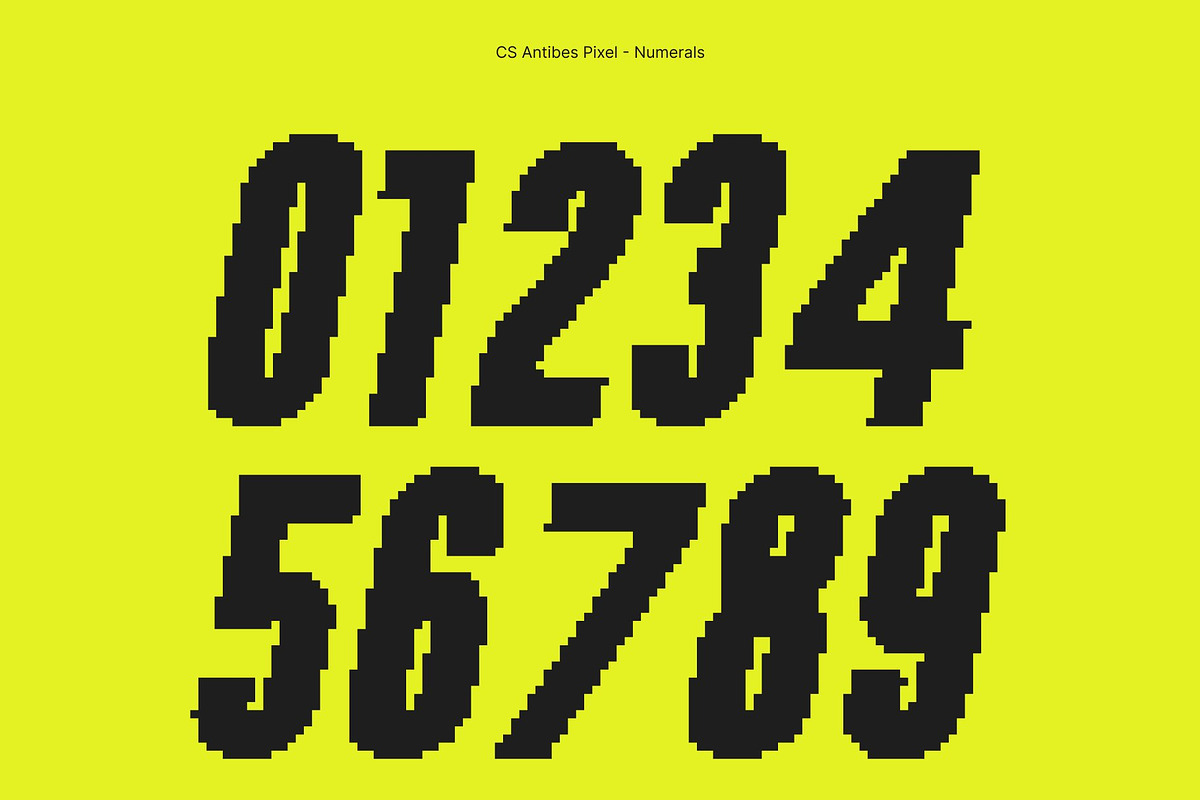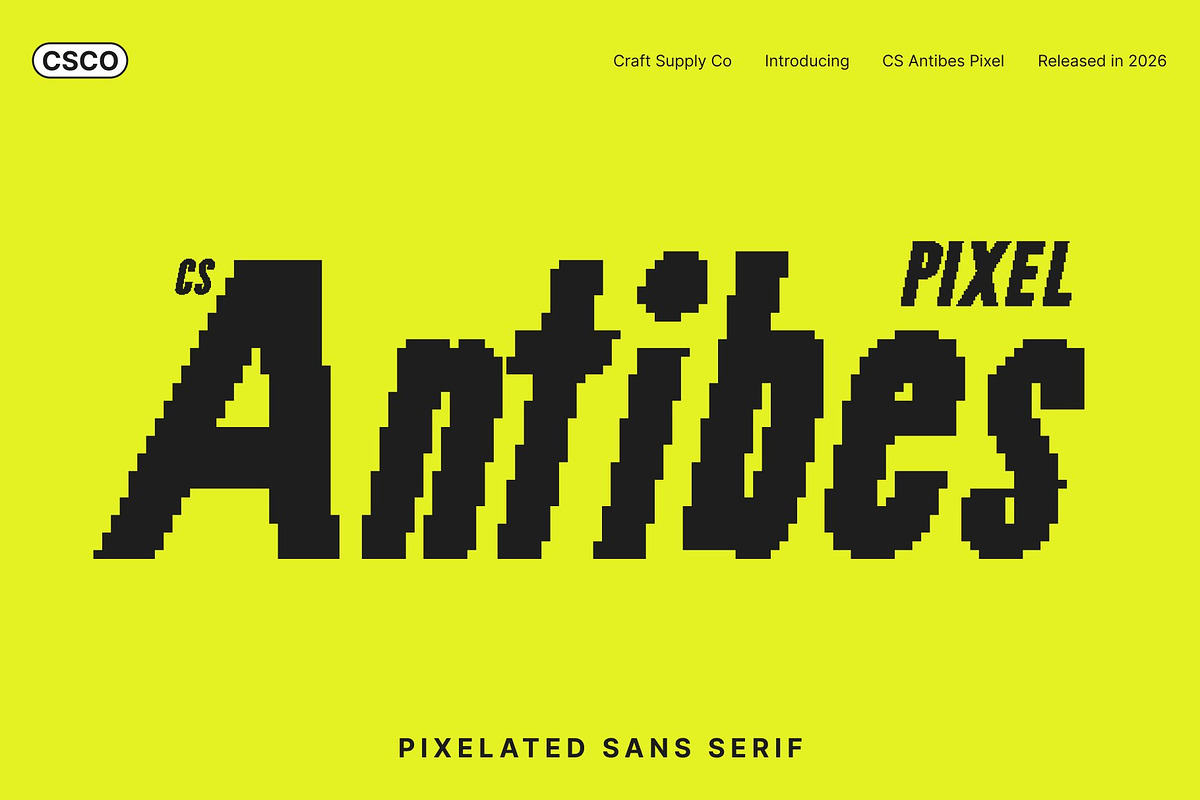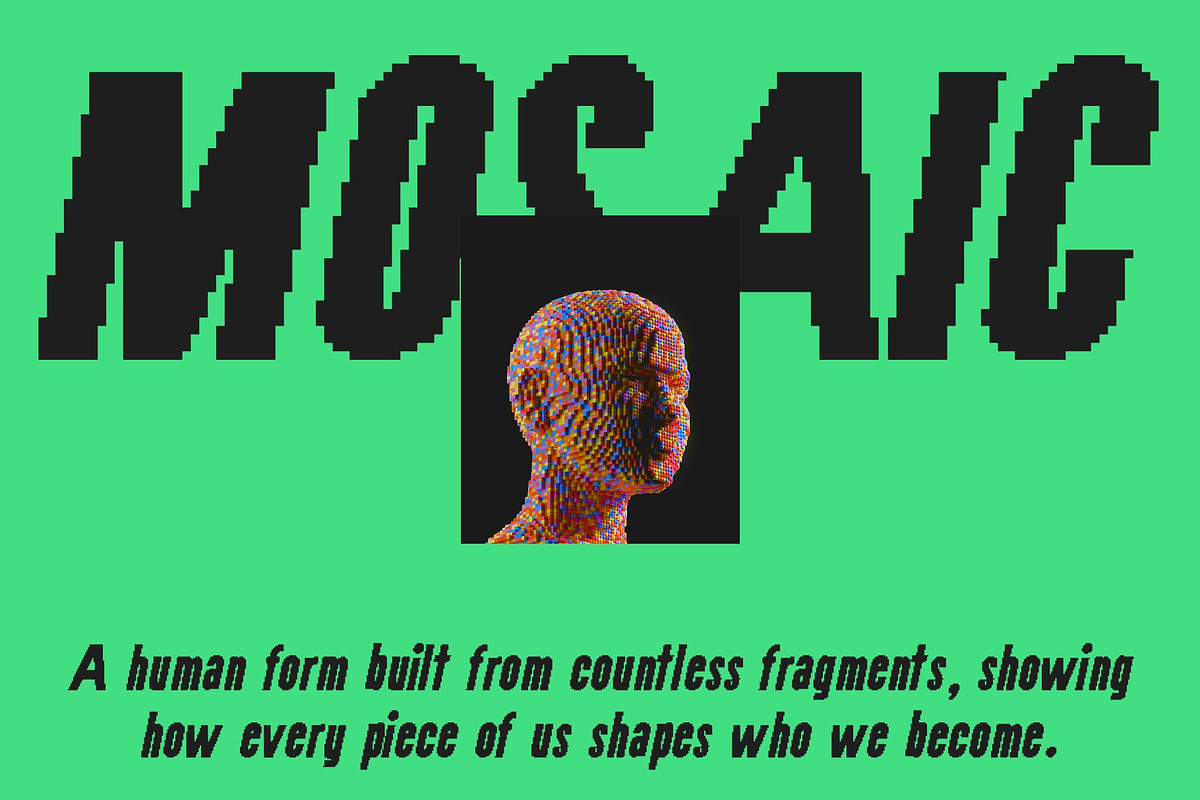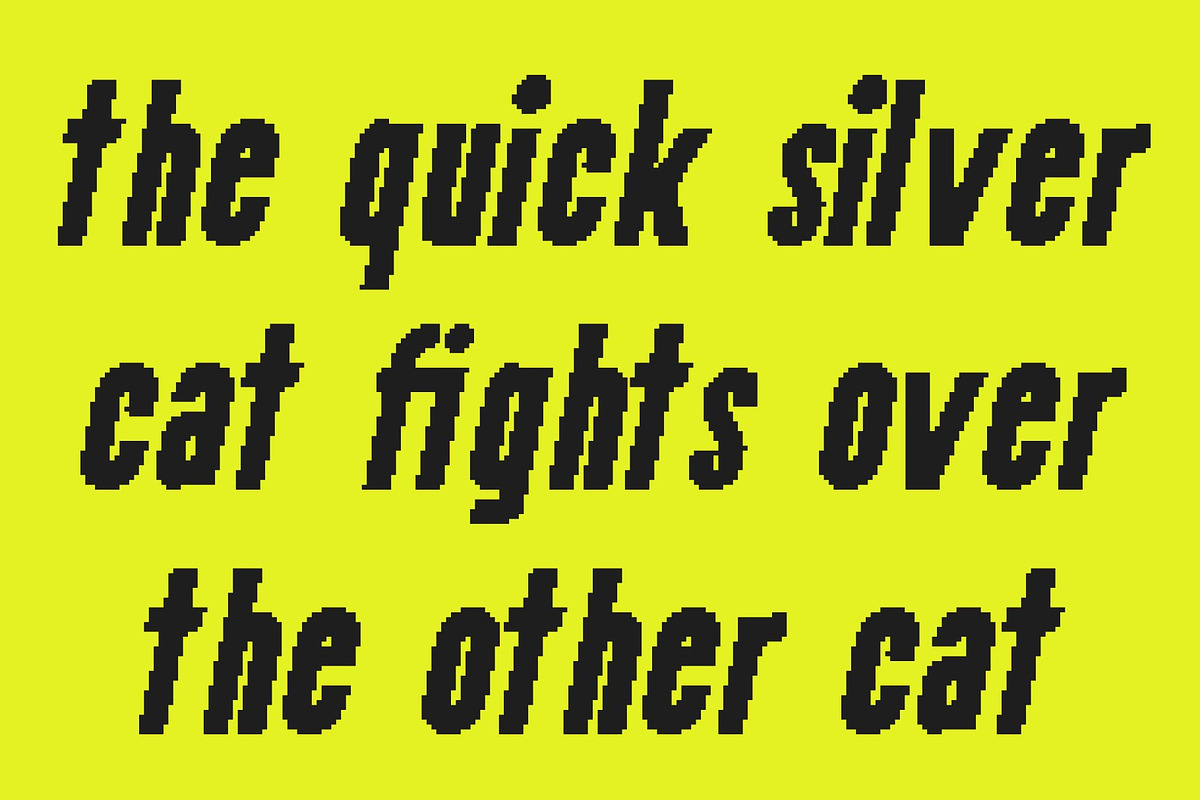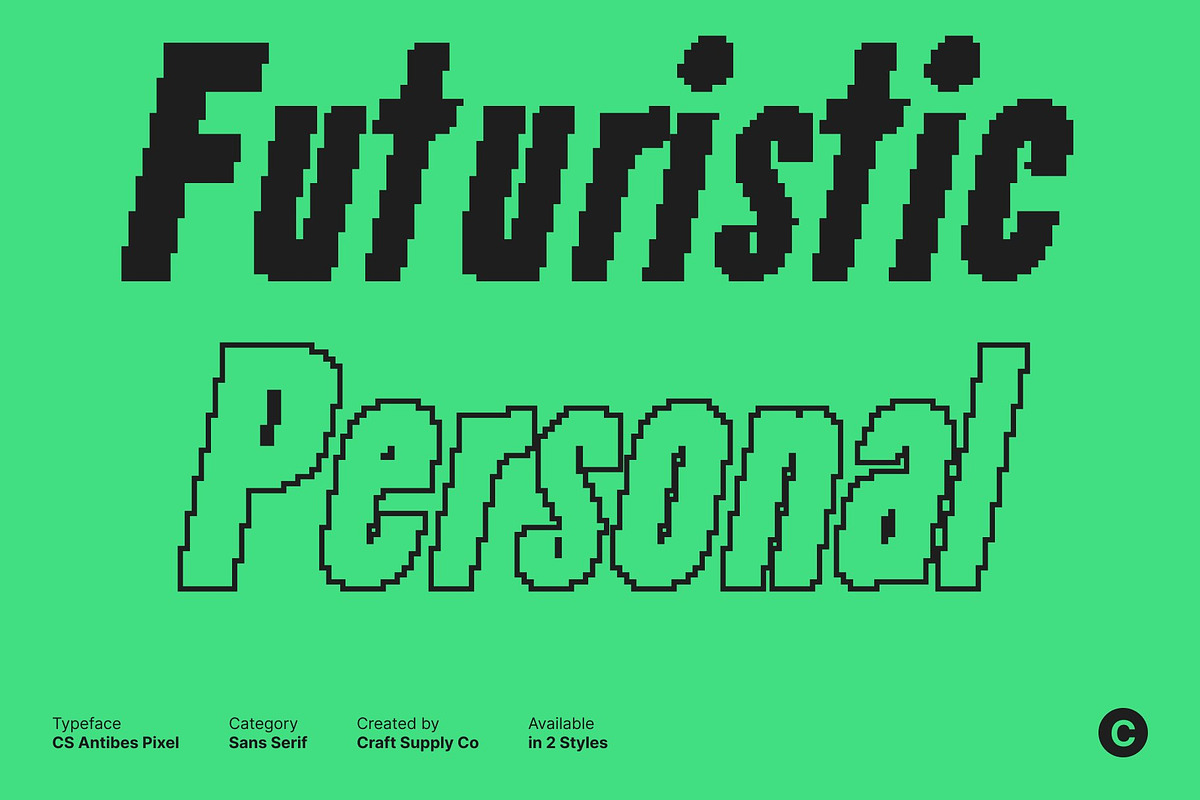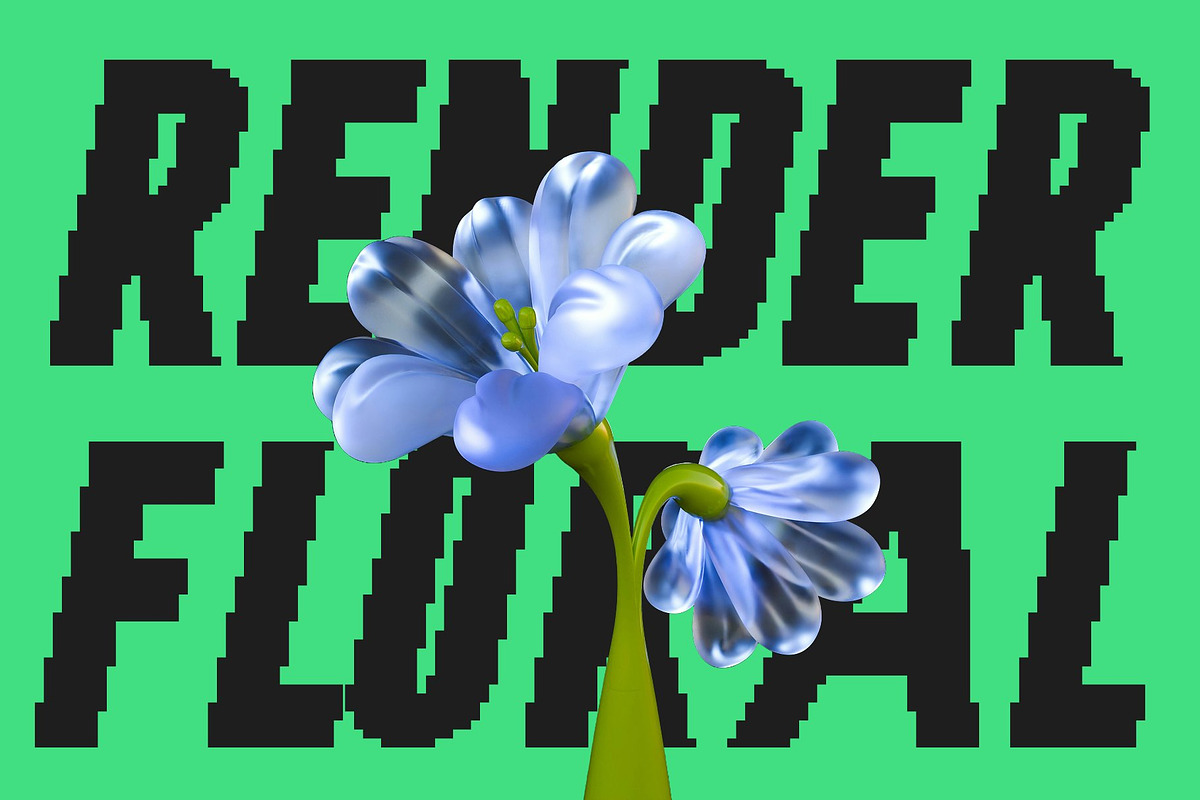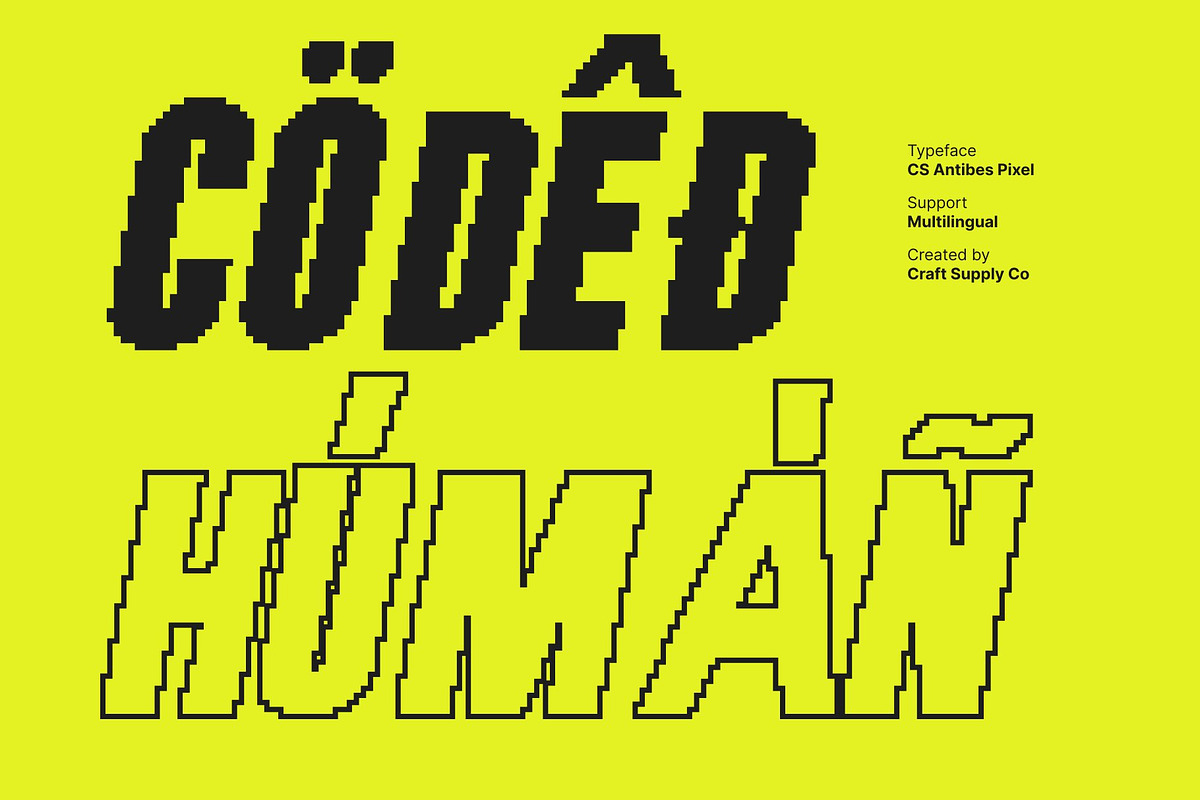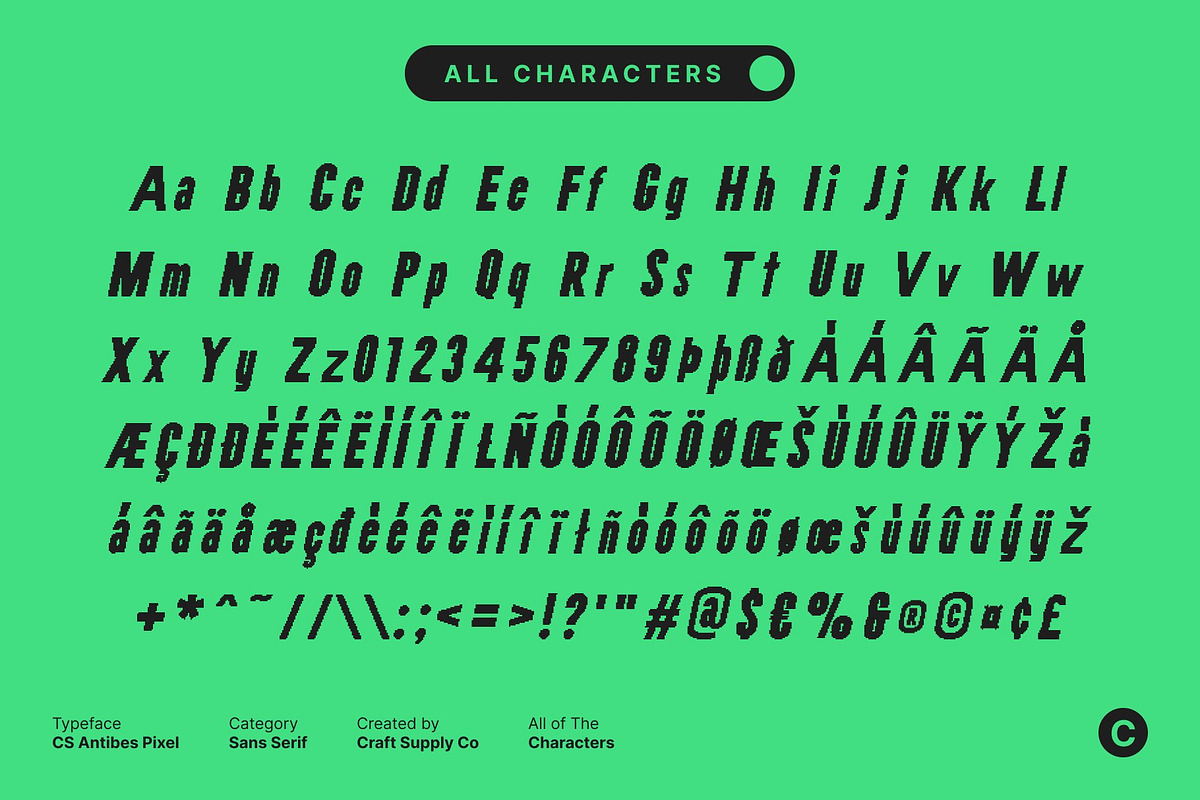
CS Antibes Pixel
CS Antibes Pixel – Bold Modernity with Expressive Pixel Power
Bold Sans Serif with Retro-Digital Edge This is a bold sans serif display font that fuses modern design with pixel-inspired retro charm. Its strong, condensed structure and confident proportions create a striking visual presence, while subtle pixel detailing adds a nod to old-school digital aesthetics. This combination gives your typography both contemporary elegance and nostalgic flair, making every design feel vibrant and purposeful.
Modern Condensed Shapes for Maximum Impact Designed with clean lines and precise geometry, each character is optimized for readability and visual rhythm. The condensed build allows for bold headlines, compact layouts, and efficient use of space without compromising clarity. Pixel accents enhance the retro-digital vibe, adding texture and depth that catch the eye while maintaining a professional, modern tone.
Expressive and Versatile This font works across a wide range of applications, from branding, posters, and advertising to editorial layouts and digital interfaces. Its expressive personality, bold weight, and pixel detail make it ideal for designs that aim to be noticed and remembered.
Perfect for Contemporary and Retro-Inspired Projects Whether creating high-impact headlines or stylish branding, this font delivers modernity with a playful nod to digital nostalgia. This font brings energy, clarity, and memorable style to every project, merging professional design with retro-tech character.
- CS Antibes Pixel Regular
- CS Antibes Pixel Outline